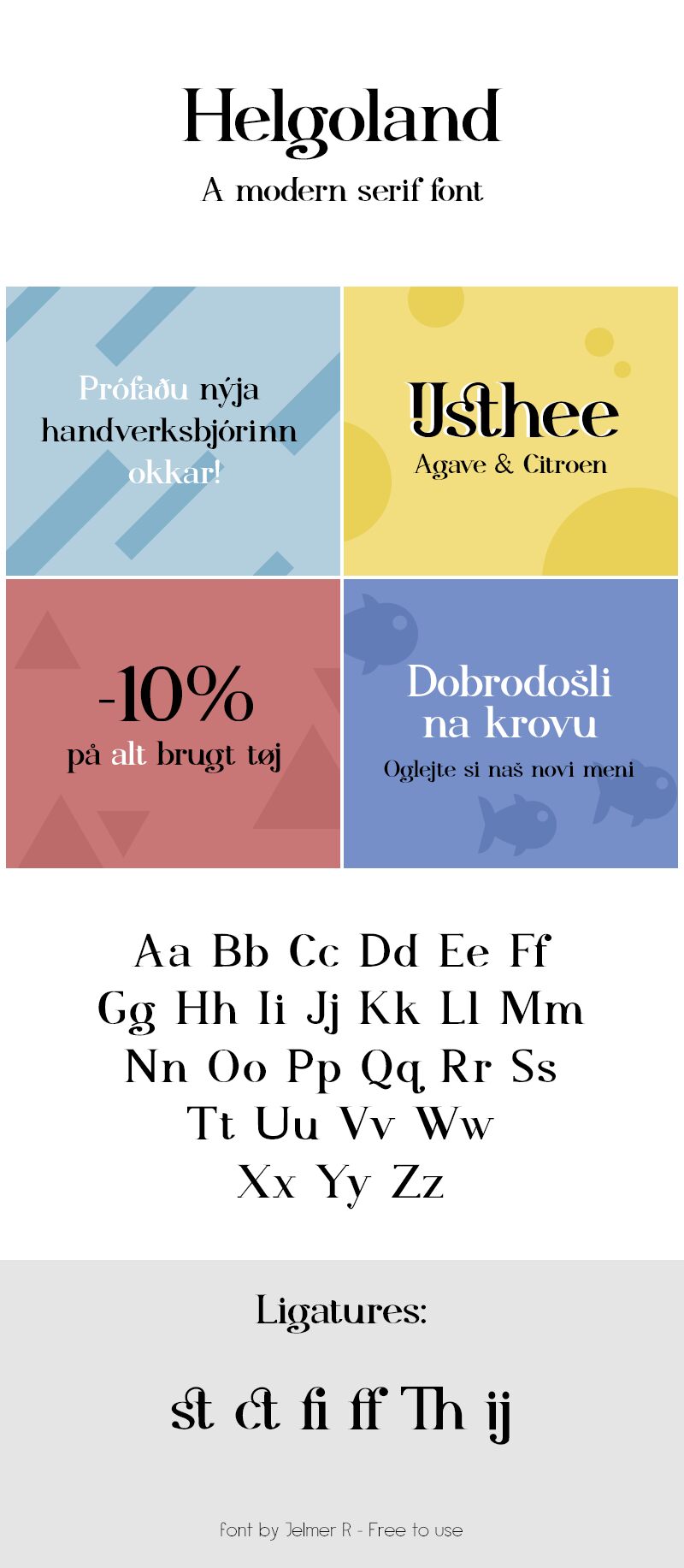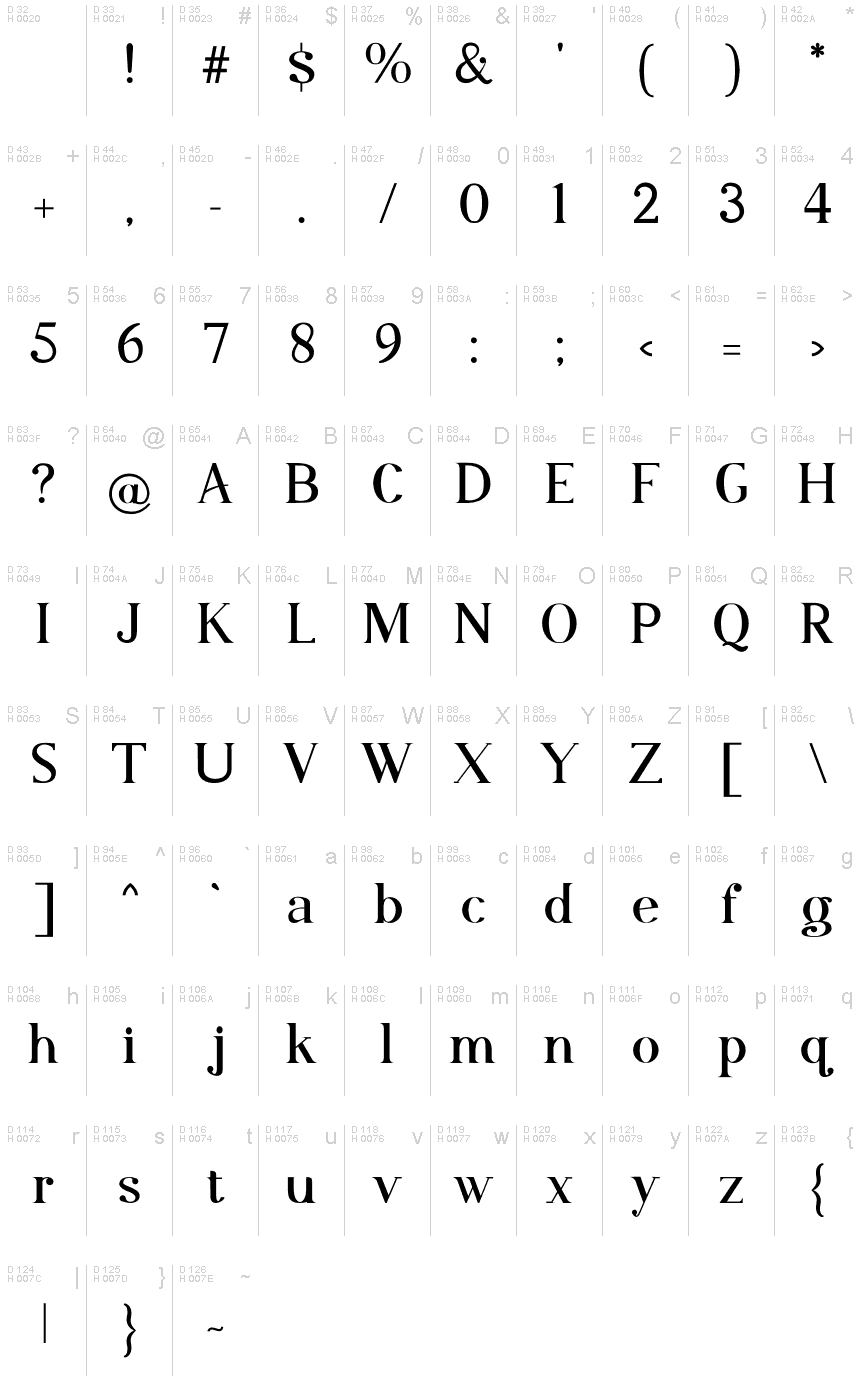
Helgoland
Helgoland, the modern serif font by Jelmer R, exudes elegance and sophistication with its semi-light weight. Its sleek lines and contemporary design make it perfect for a range of projects, from high-end fashion editorials to minimalist branding campaigns. The sharp edges and clean curves of Helgoland are ideal for creating clean-cut logos or titles in magazines, while its readability makes it an excellent choice for long-form content such as books or websites. Whether you're looking to elevate your brand's image or add a touch of refinement to your editorial layouts, Helgoland is the versatile typeface that will help you achieve your design goals.
The font was designed with the following languages in mind:
Basque, Croatian, Danish, Dutch, Esperanto, Estonian, Finnish, French, Frisian, German, Hawaiian, Hungarian, Latvian, Lithuanian, Māori, Norwegian, Polish, Slovenian, Spanish, Swedish, Turkish.
This way it should contain most glyphs commonly used by almost every Latin language.